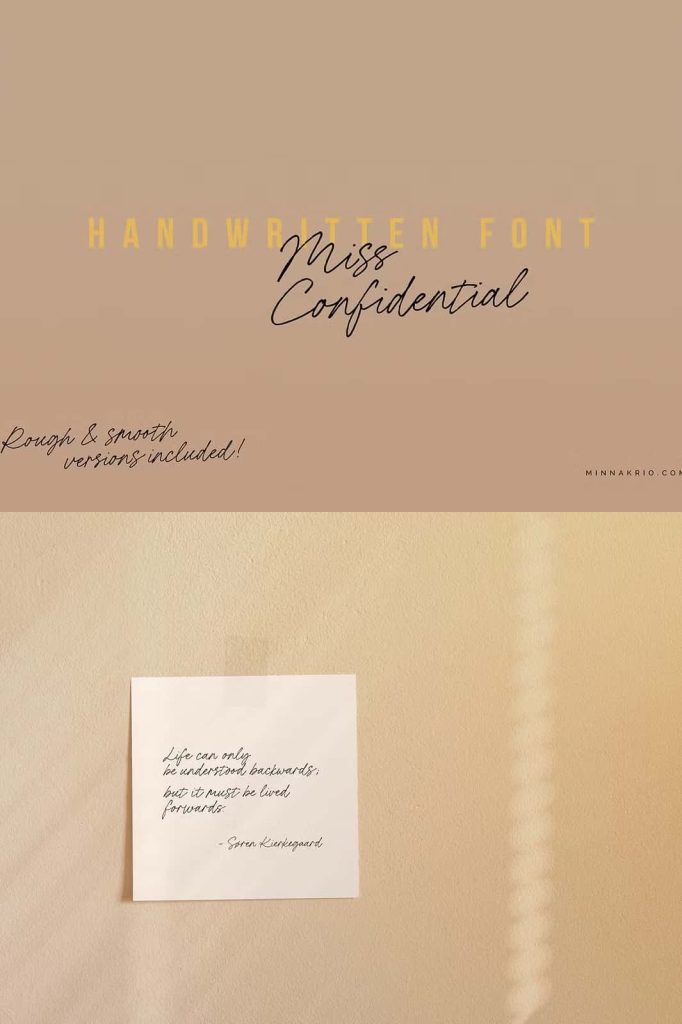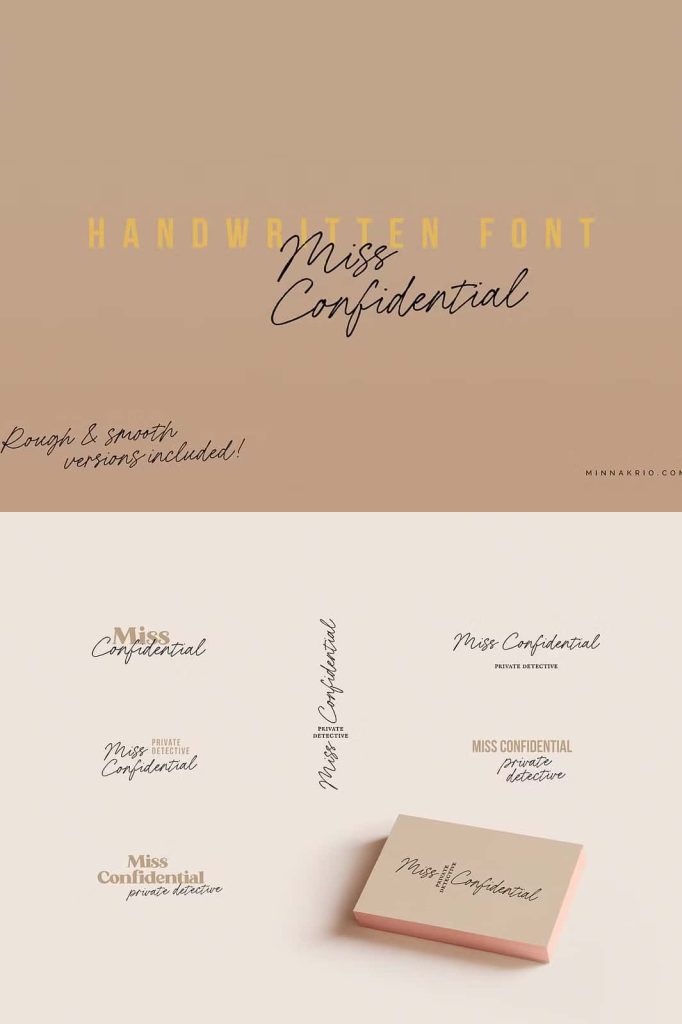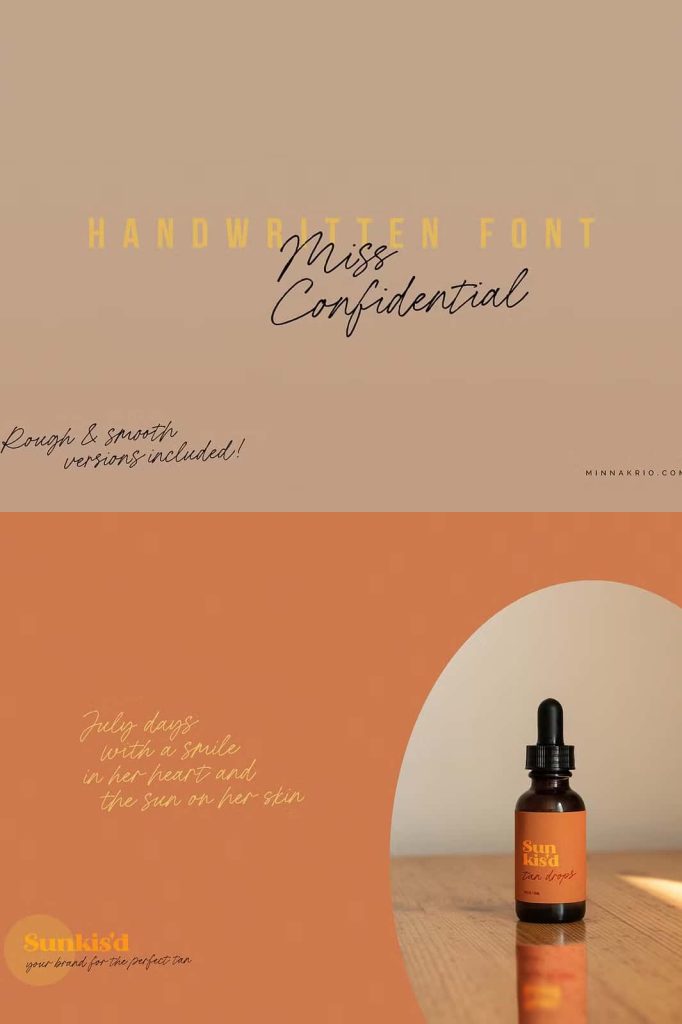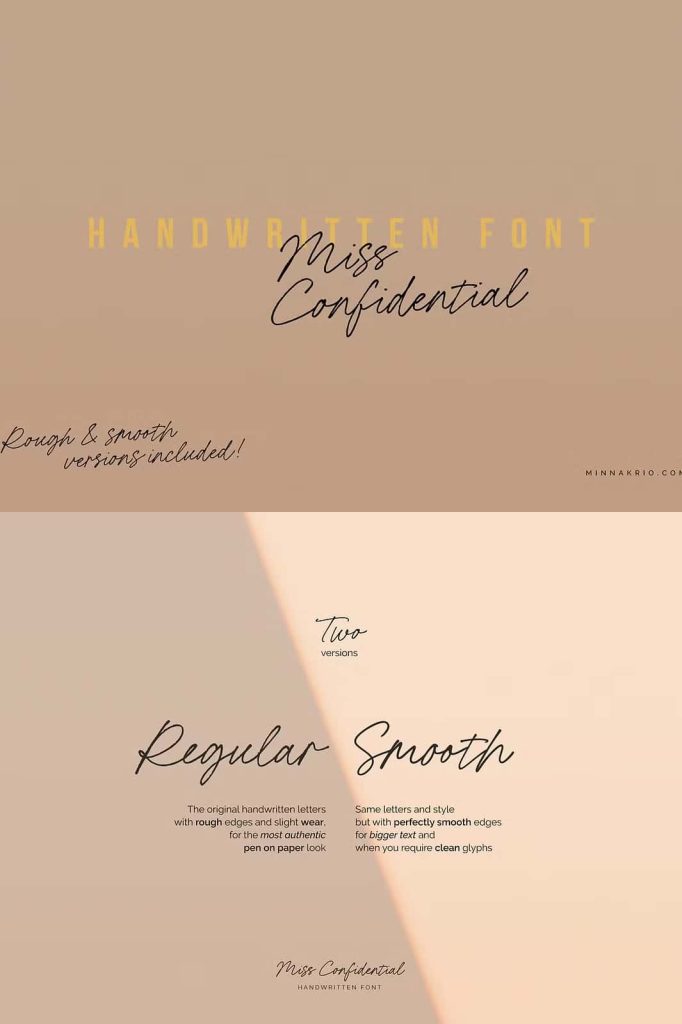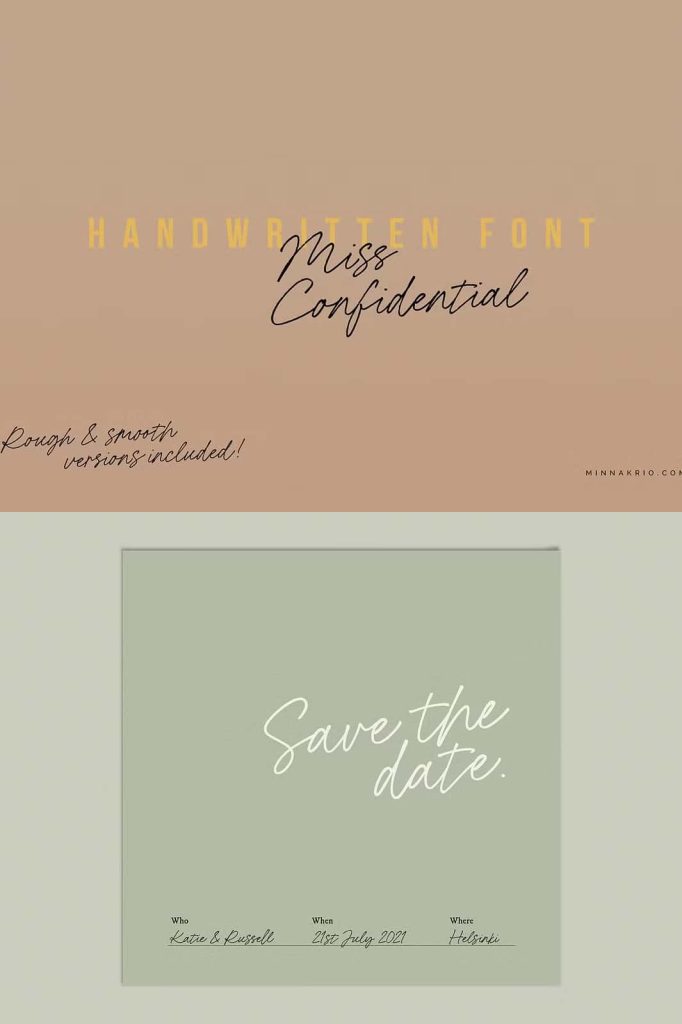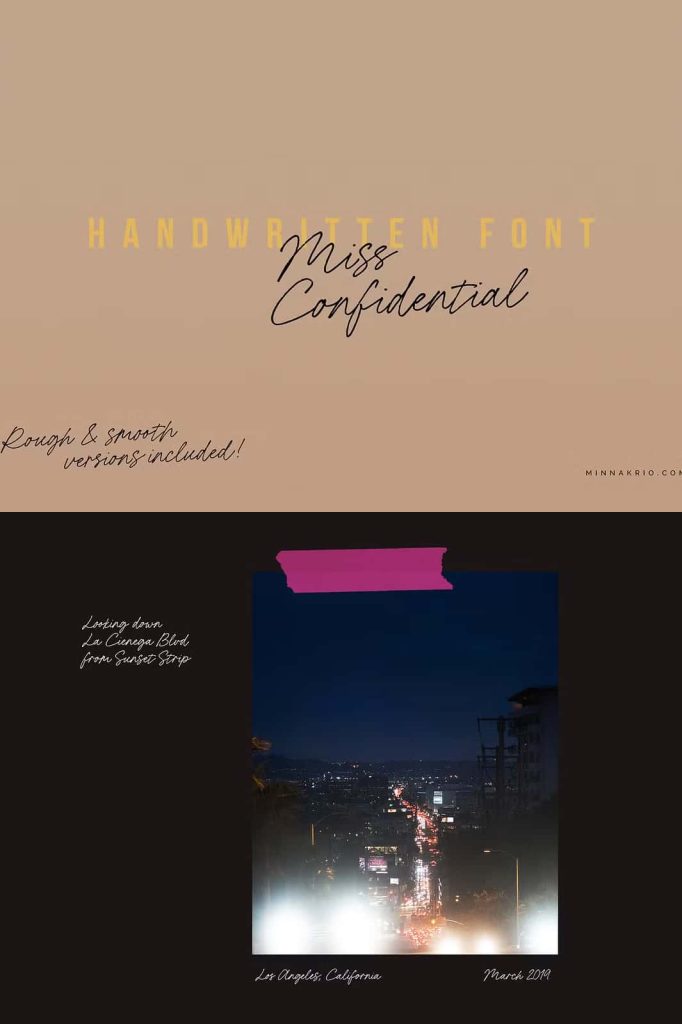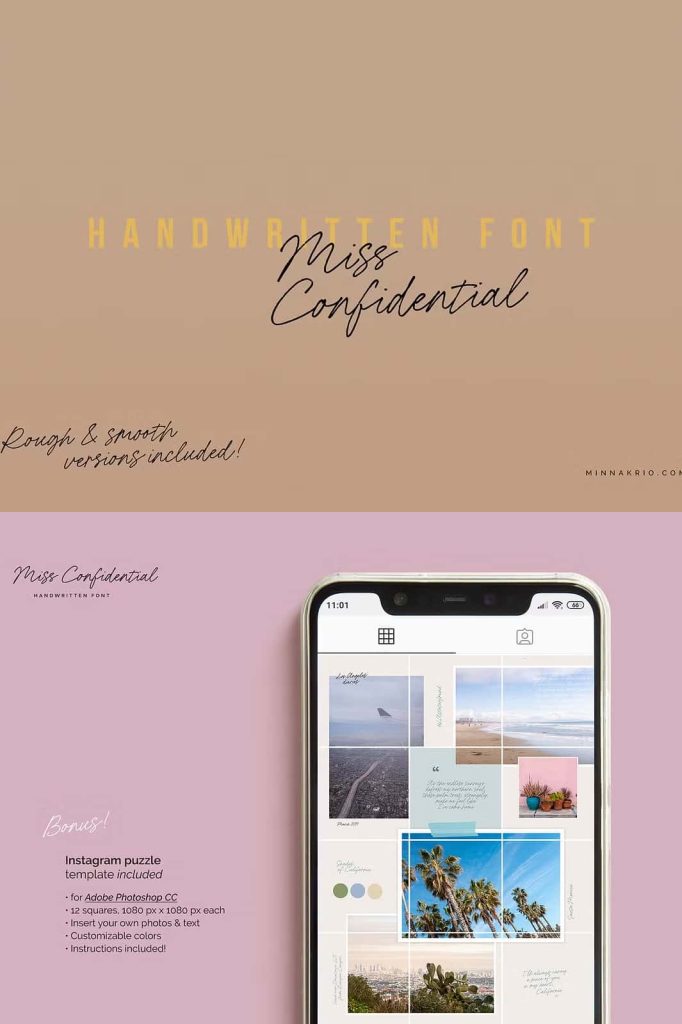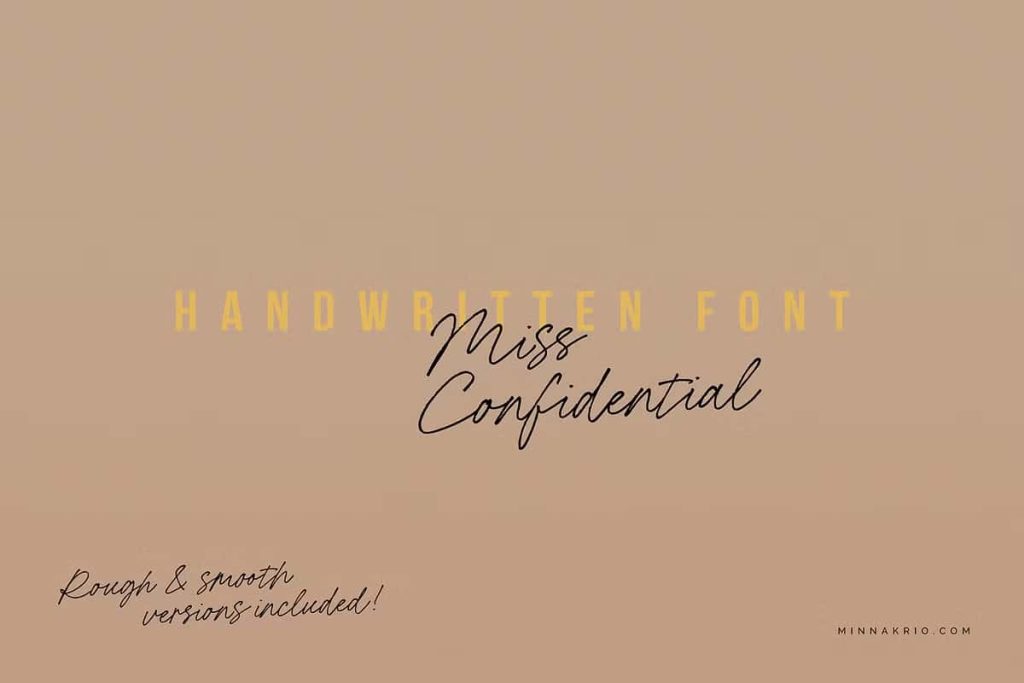
Miss Confidential handwritten font
Miss Confidential – A Classy Handwritten Script Font
Miss Confidential is a beautiful handwritten script font designed to bring warmth, elegance, and personality to your creative projects. This stylish typeface blends casual handwriting with a refined sense of class, making it an excellent choice for designers who want typography that feels both natural and sophisticated. With its flowing strokes and graceful curves, Miss Confidential captures the charm of authentic handwriting while maintaining a polished and professional appearance.
The font offers a perfect balance between subtle elegance and expressive style. It can appear soft and delicate when used for small accents, or it can command attention when used as a bold display element. This flexibility allows designers to use Miss Confidential in many different types of design work, from elegant wedding stationery to modern branding materials.
If you want to add a warm and organic handwritten touch to your typography, Miss Confidential provides the ideal solution. Its stylish personality helps transform simple text into expressive and memorable design elements.
A Handwritten Script Font with Natural Elegance
Miss Confidential stands out because of its natural handwritten flow. Each letter features smooth curves and gentle connections that mimic authentic handwriting. These details give the font a personal and approachable character, which makes designs feel more human and emotionally engaging.
The script structure allows letters to flow smoothly across words and sentences. This creates beautiful rhythm in typography and adds visual harmony to any layout. Designers can use the font to create text that feels elegant, stylish, and full of personality.
Unlike overly decorative script fonts, Miss Confidential maintains a clean and balanced design. The strokes remain readable and refined, ensuring that the typography looks professional in both digital and print formats.
Subtle When Needed, Bold When It Matters
One of the most appealing qualities of Miss Confidential is its versatility. The font adapts easily to different roles within a design. Sometimes typography needs to play a subtle supporting role, while other times it must become the centerpiece of the layout. Miss Confidential handles both situations effortlessly.
When used in small details, the font adds a delicate handwritten accent that enhances the overall design without overwhelming it. A quick signature, a small message, or a personal note can instantly feel more authentic when written in this script style.
However, when used for headlines or large typography, Miss Confidential confidently takes center stage. The elegant curves and expressive strokes create strong visual impact, allowing the font to become the main attraction in your design composition.
Perfect for Many Creative Applications
• Logo and brand identity design
• Wedding invitations and stationery
• Product packaging and labels
• Greeting cards and event announcements
• Inspirational quotes and typography artwork
• Social media posts and marketing graphics
• Personal signatures and branding accents
Ideal for Logos and Branding Projects
Miss Confidential works beautifully in logo design and brand identity projects. Brands that want to communicate elegance, creativity, and authenticity often choose handwritten typography to establish a strong emotional connection with their audience.
The flowing script style of this font helps create logos that feel stylish and personal. It works especially well for lifestyle brands, beauty businesses, boutique shops, and handmade product lines. The natural handwriting aesthetic suggests care, craftsmanship, and individuality.
Designers can also combine Miss Confidential with simple sans serif fonts to create balanced brand identities. This pairing technique allows the script font to provide personality while the supporting typography maintains structure and clarity.
Perfect for Wedding Invitations and Special Events
Wedding stationery often requires typography that feels romantic and elegant. Miss Confidential brings exactly that atmosphere to invitation designs, save-the-date cards, and thank-you notes. The graceful handwritten style helps create a sense of intimacy and celebration.
Couples and wedding designers can use the font to craft beautiful invitations that reflect the emotional tone of the event. The smooth curves and flowing connections make every word feel carefully written and heartfelt.
Beyond weddings, the font also works beautifully for anniversaries, celebrations, greeting cards, and personal event announcements.
Create Engaging Social Media and Quote Designs
Miss Confidential also performs exceptionally well in digital design environments. Social media platforms reward content that feels authentic and visually appealing. The handwritten script style helps posts feel more personal and engaging, which encourages audiences to connect with the message.
Designers and content creators can use the font to craft inspirational quotes, stylish captions, and promotional graphics. When paired with simple backgrounds or minimal layouts, the script lettering becomes a powerful visual element that attracts attention.
The organic flow of the font also helps communicate creativity and artistic expression, making it ideal for lifestyle content, motivational graphics, and brand storytelling.
A Stylish Typeface for Creative Designers
Miss Confidential offers designers a flexible and elegant tool for modern typography. Its combination of casual handwriting and refined style allows it to adapt to many creative environments. Whether you use it for branding, invitations, packaging, or social media graphics, the font adds a sense of warmth and authenticity to your designs.
The beauty of this handwritten script font lies in its ability to communicate personality without sacrificing sophistication. Each letter feels thoughtfully crafted, allowing the typography to elevate the overall design.
Add Handmade Elegance to Your Designs
Miss Confidential is the perfect handwritten script font for designers who want to combine casual charm with classy elegance. Its flowing strokes, organic rhythm, and stylish character help create typography that feels both personal and professional.
Whether it appears as a subtle signature in the corner of a design or as the main headline that defines the layout, Miss Confidential always delivers impeccable style. Use this font to bring warmth, creativity, and handmade beauty to your next design project.